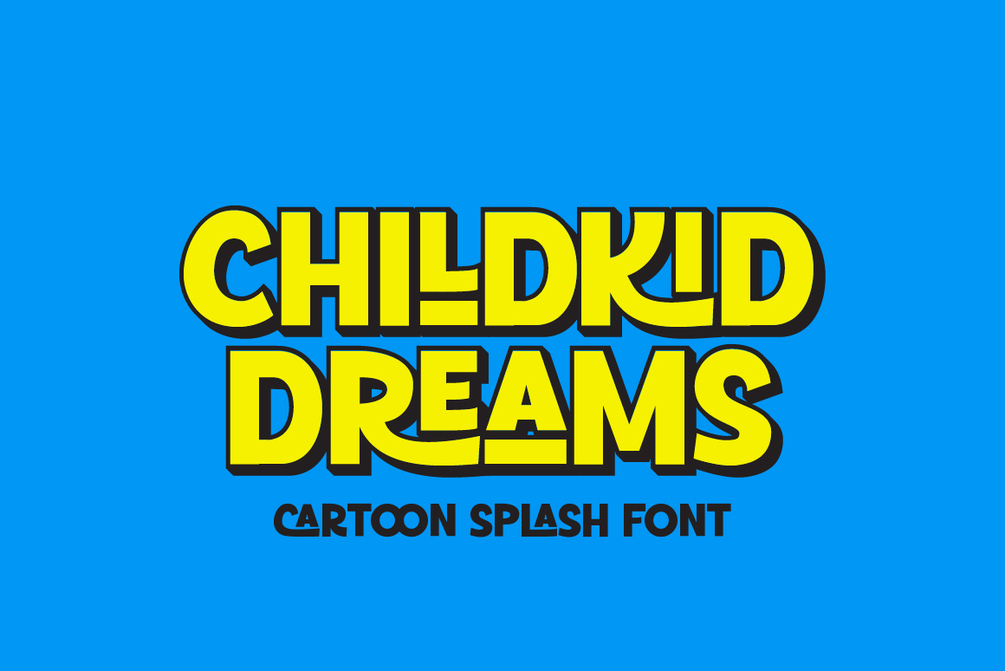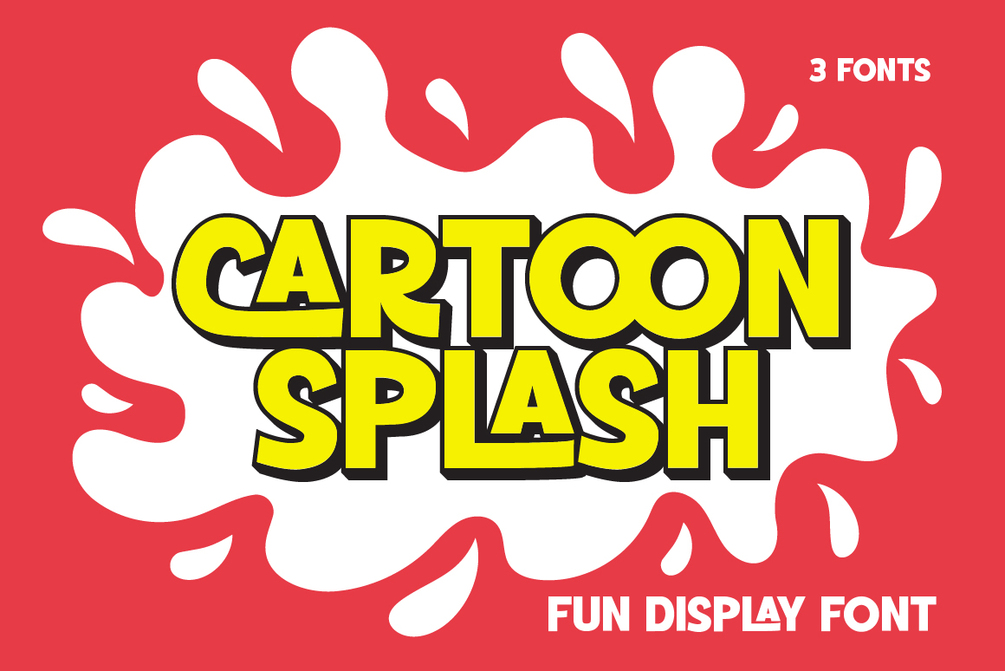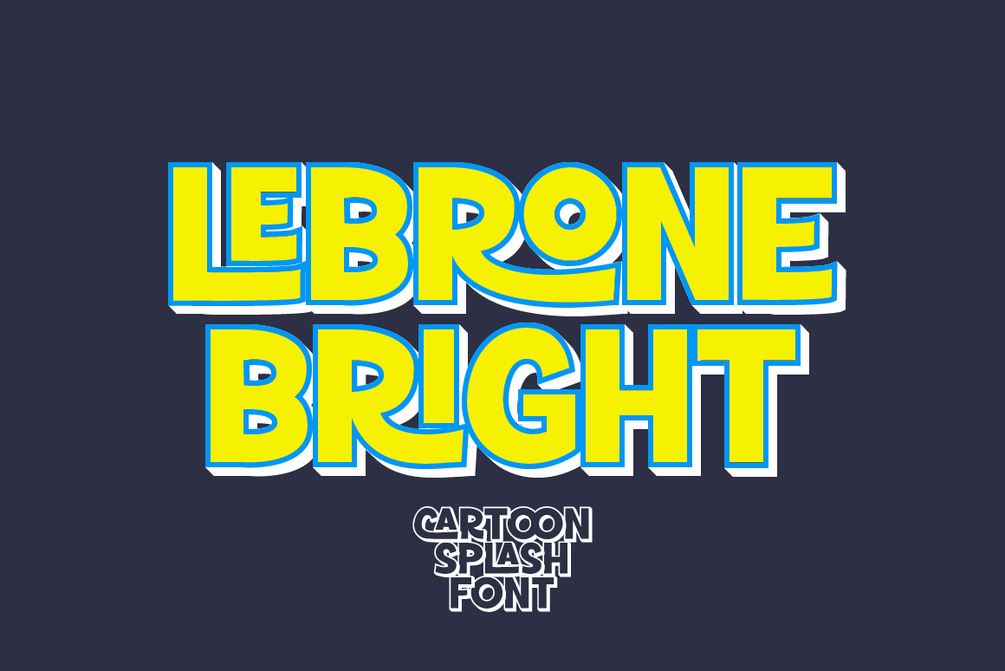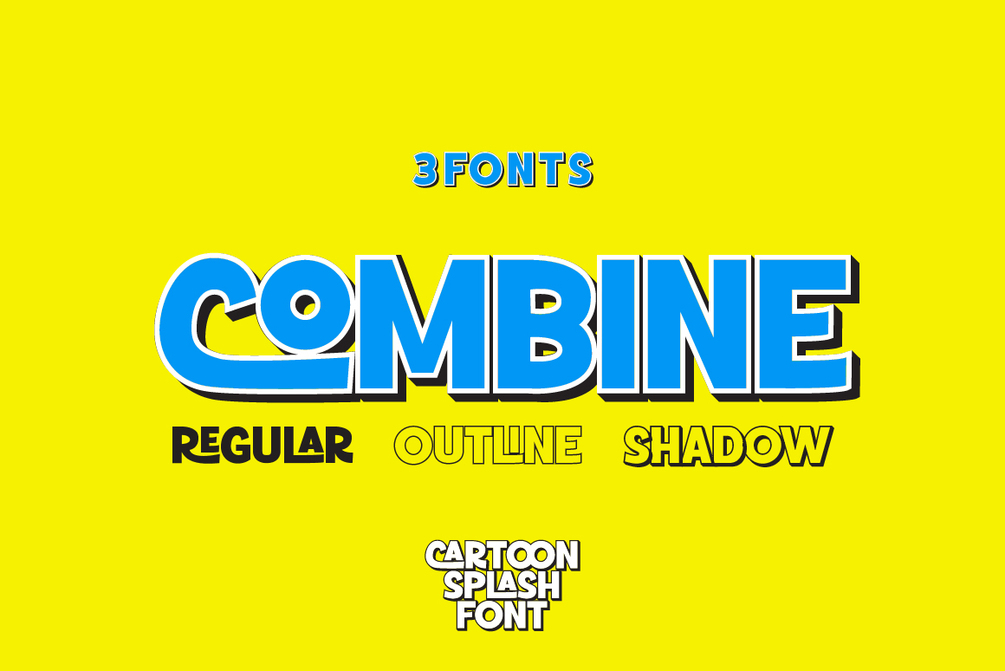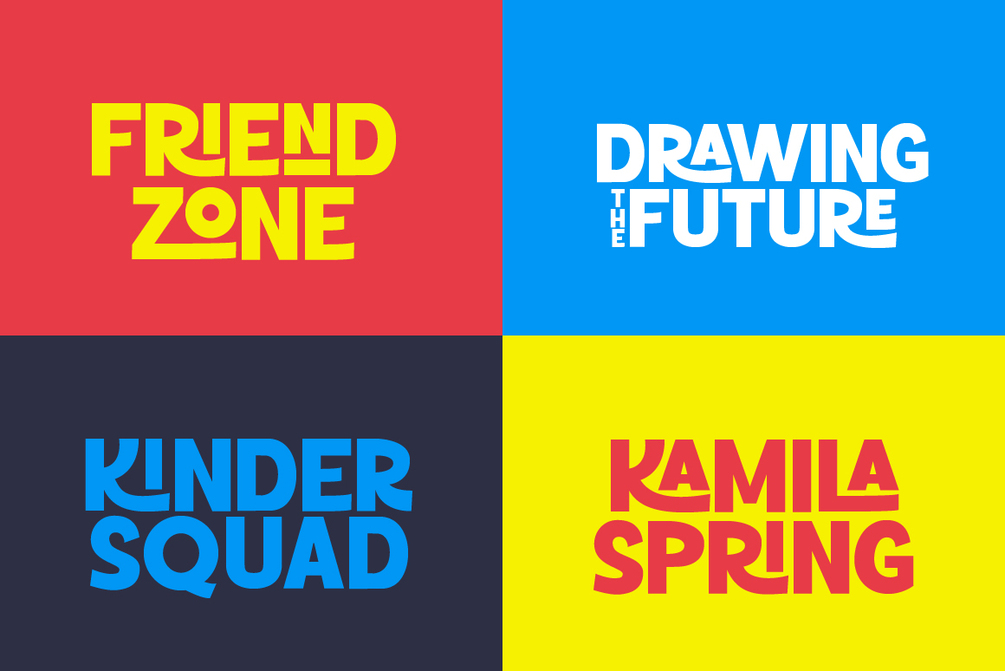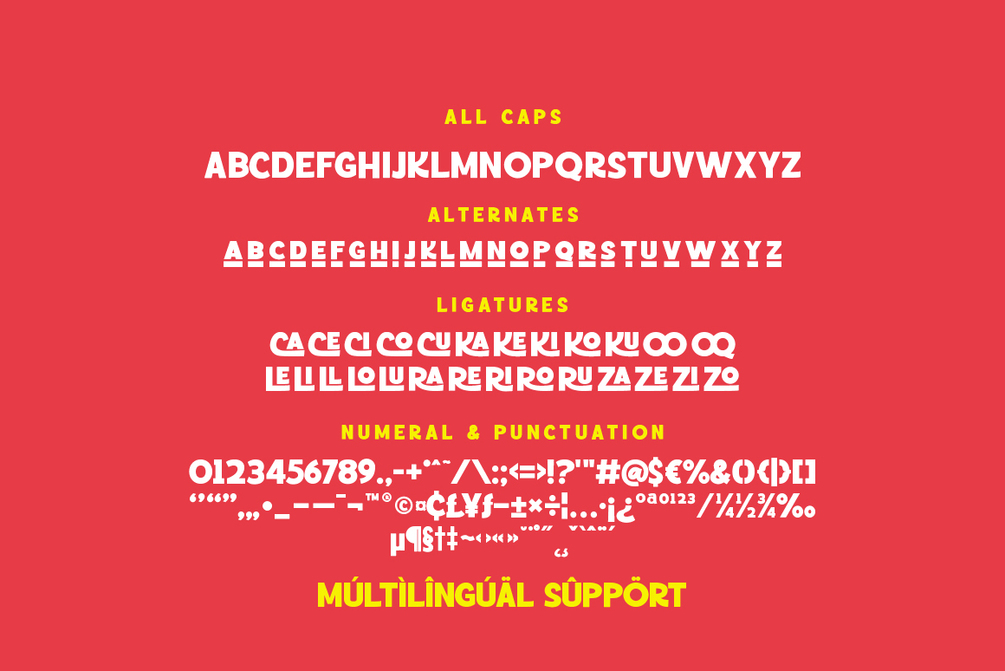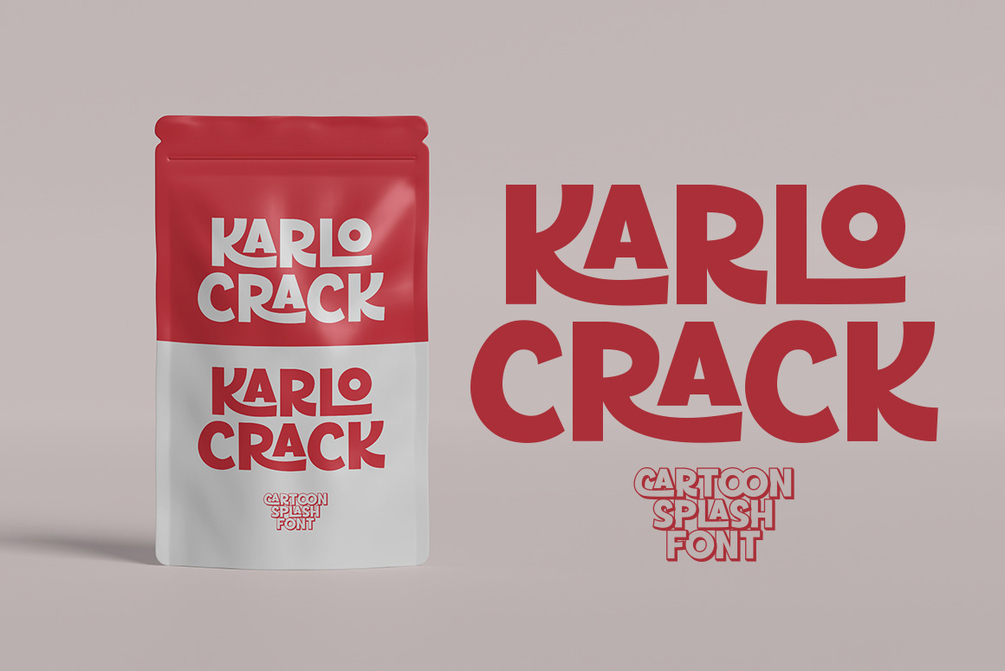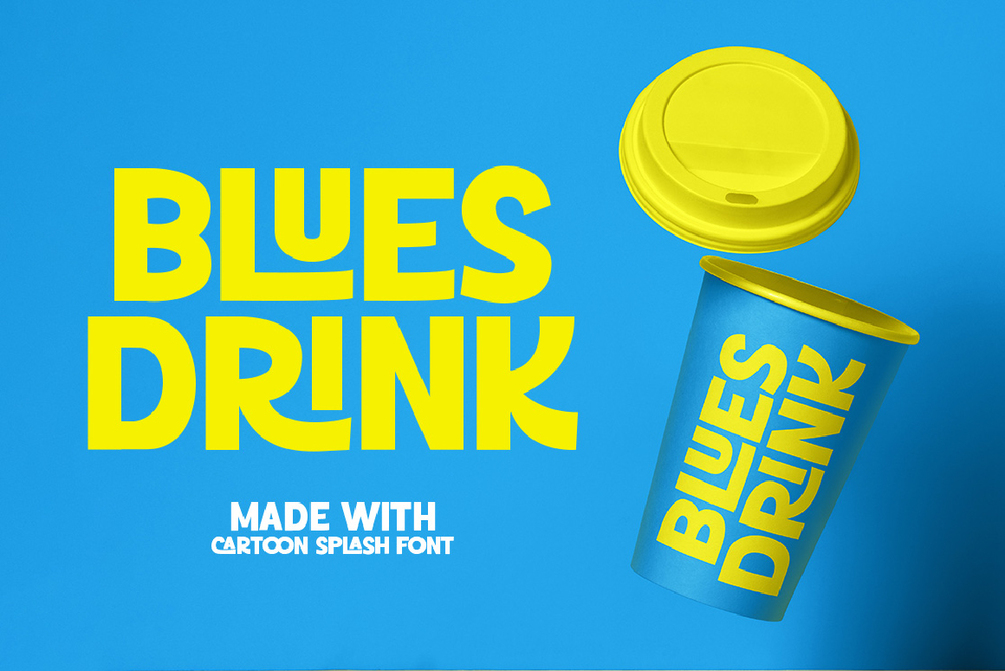
Cartoon Splash
Cartoon Splash is a bold and lively display font designed to bring joy and fun to your creations. This unique typeface features playful ligatures that add a charming, cartoon-inspired touch to your text. Perfect for projects that need an extra dose of happiness, whether it’s kids' books, comic designs, party invitations, or posters, Cartoon Splash fills your designs with personality and energy. Embrace the cartoonish, cheerful style and let your words pop with Cartoon Splash.